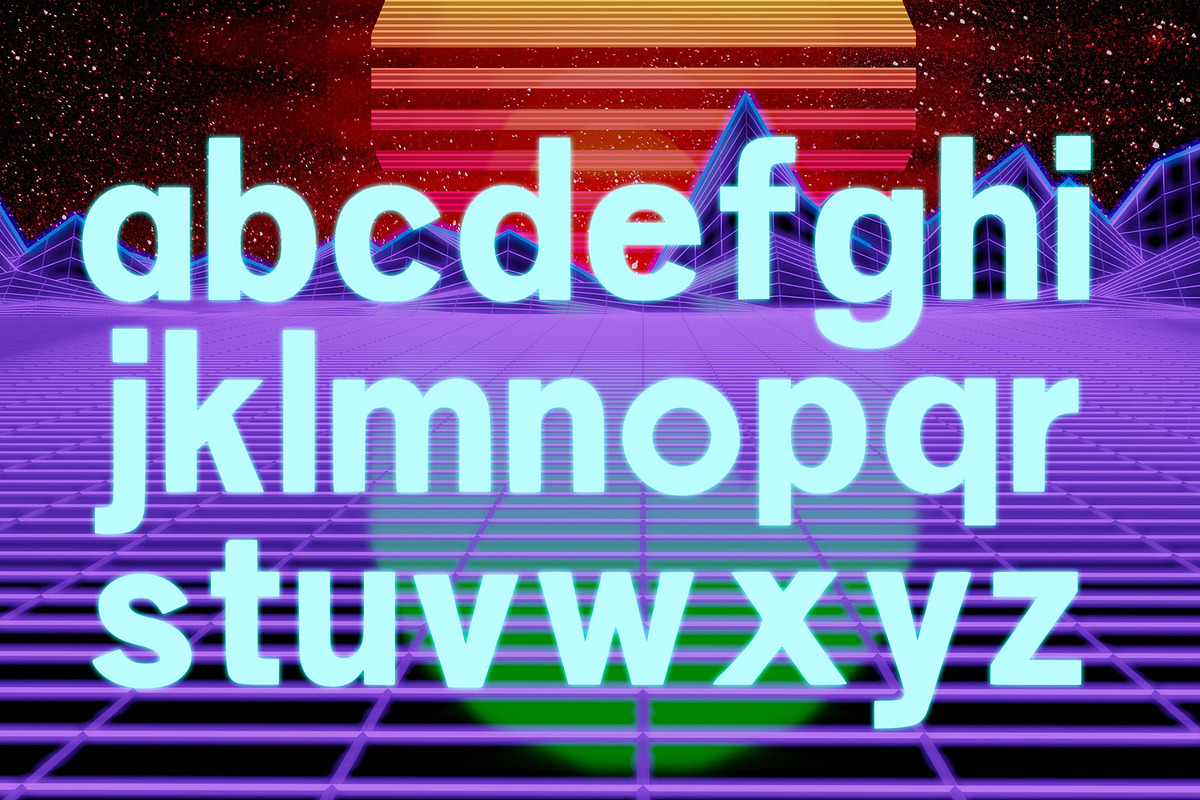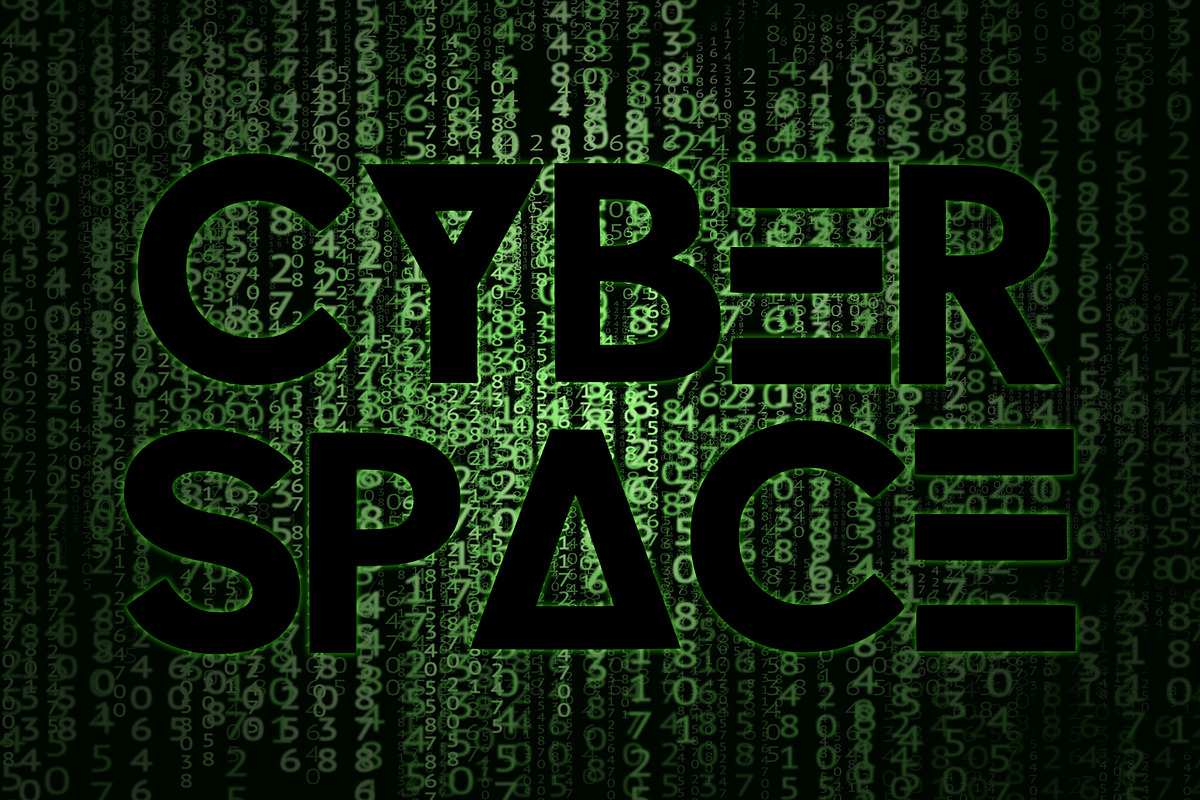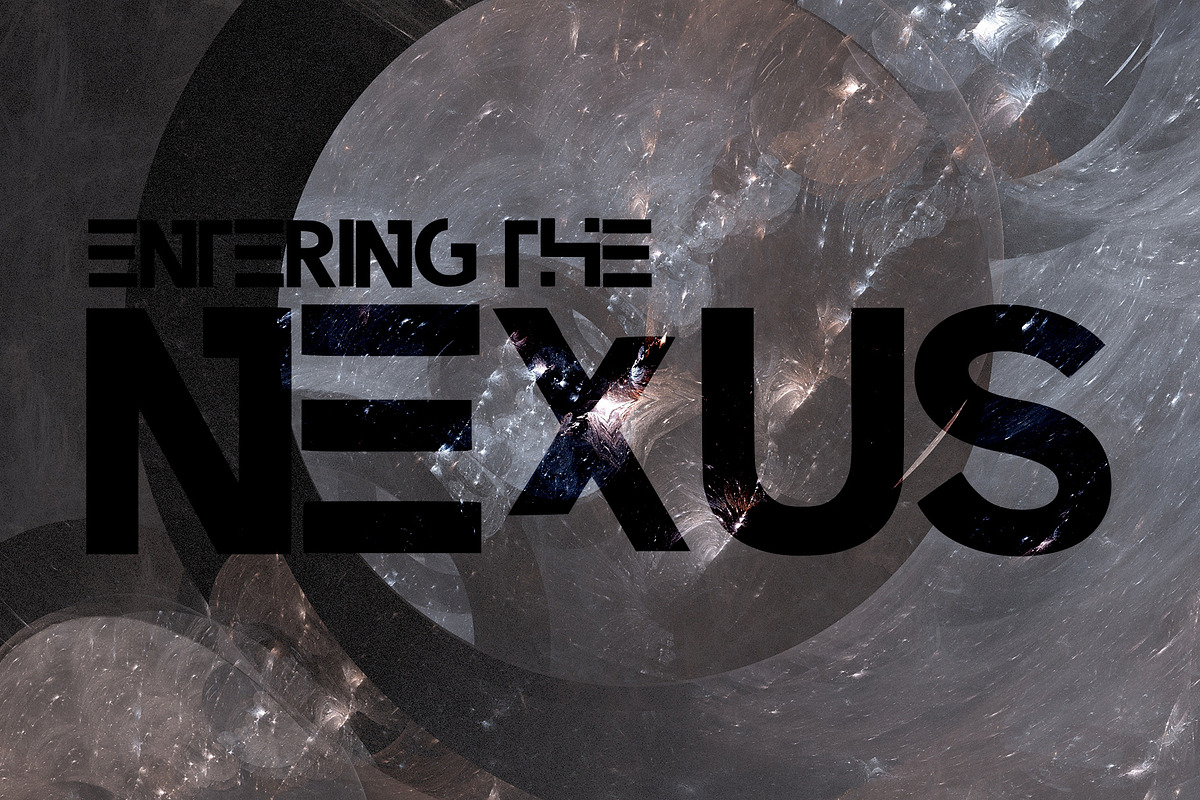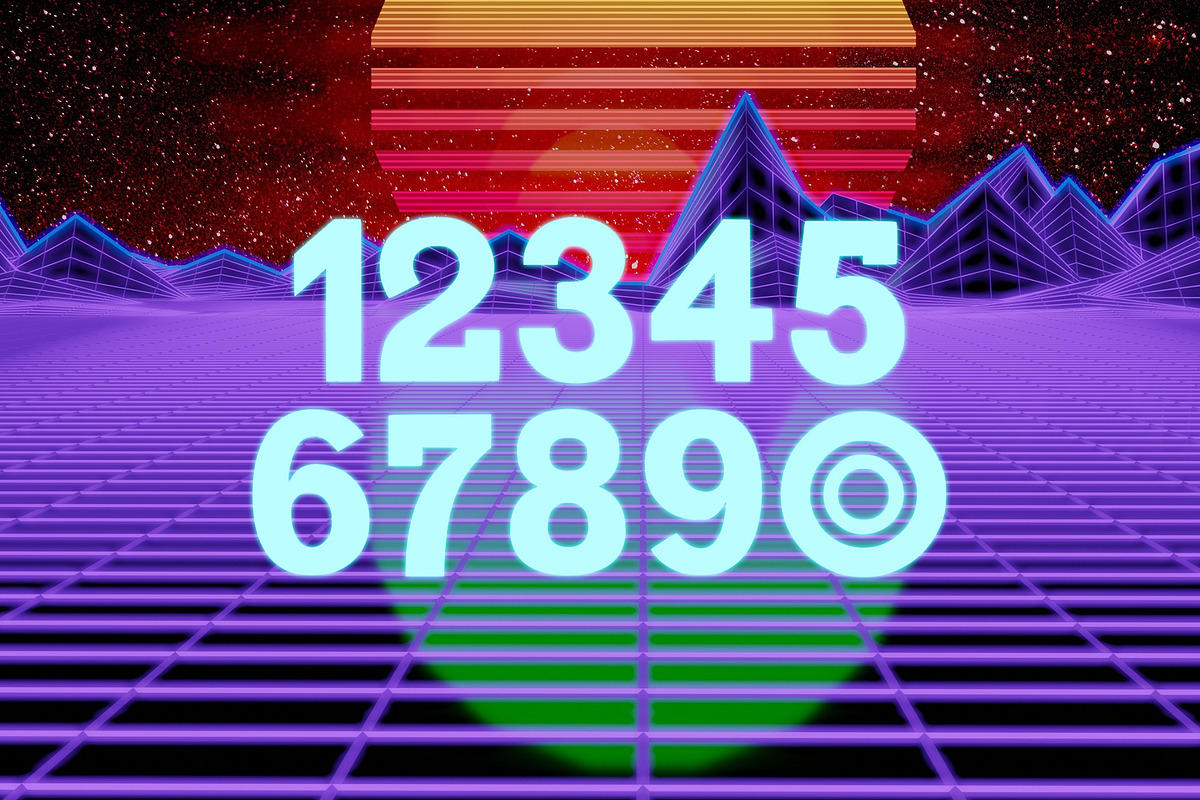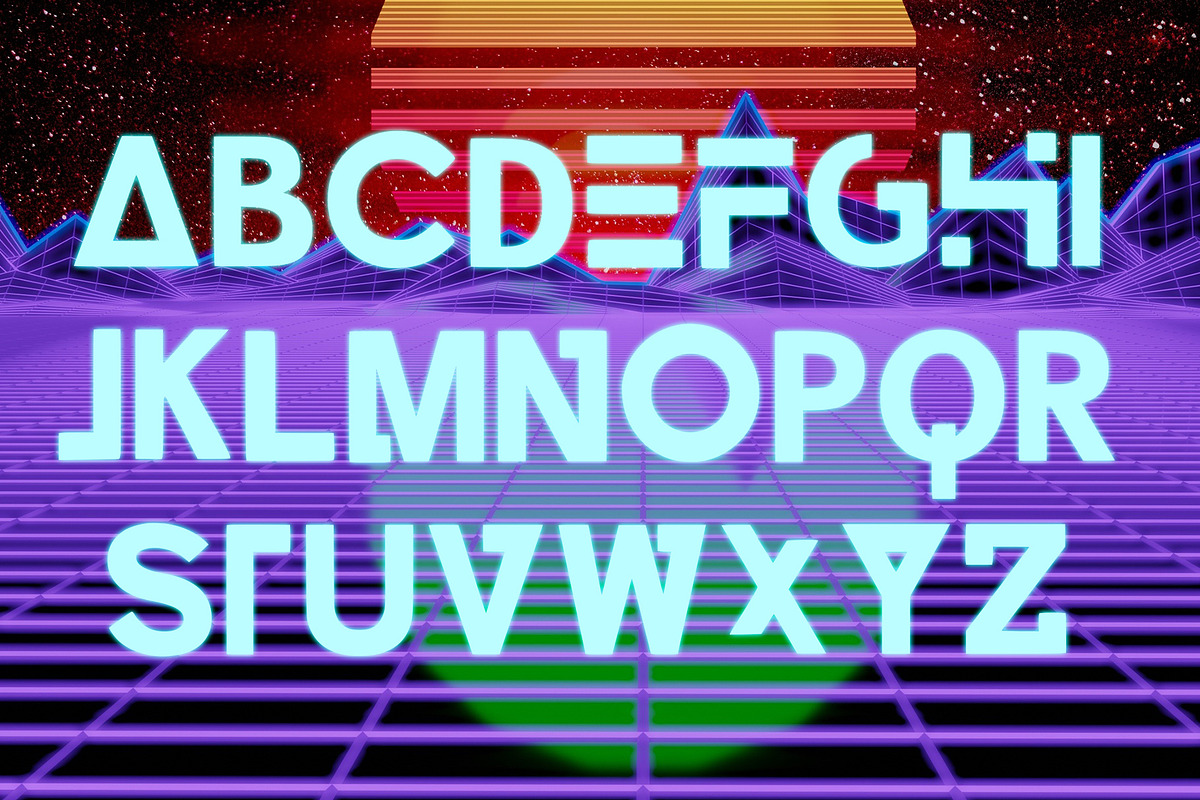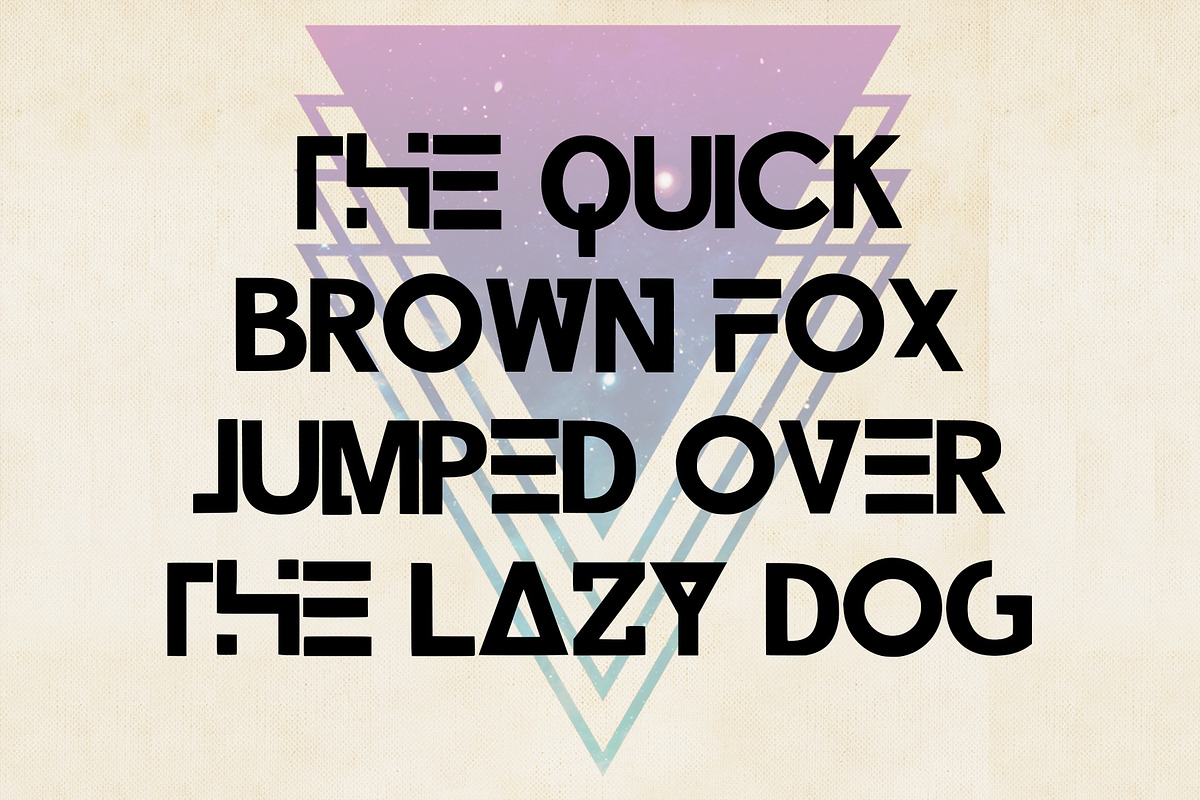
CONTROL - A Futuristic Typeface
Control is a unique and creative design that has been passionately handcrafted to give you an innovative typeface. Inspired by sci-fi, this font is perfect for your next project, especially if you want to give a futuristic feel.